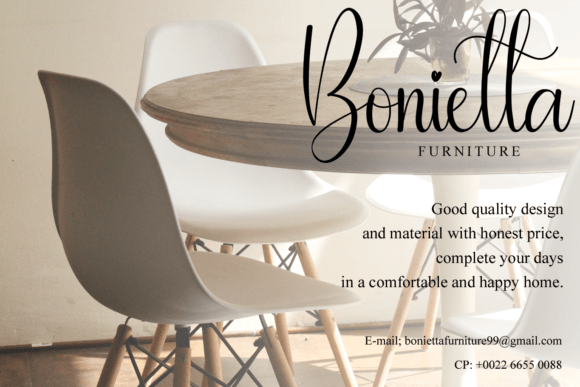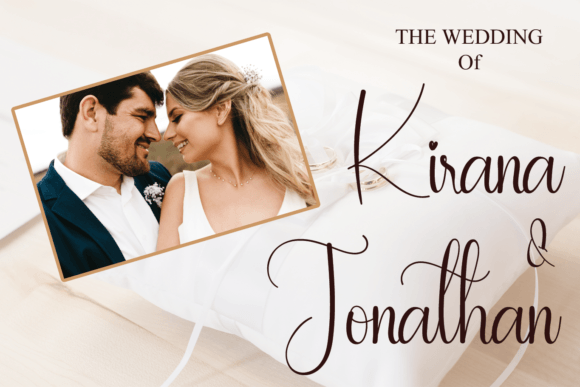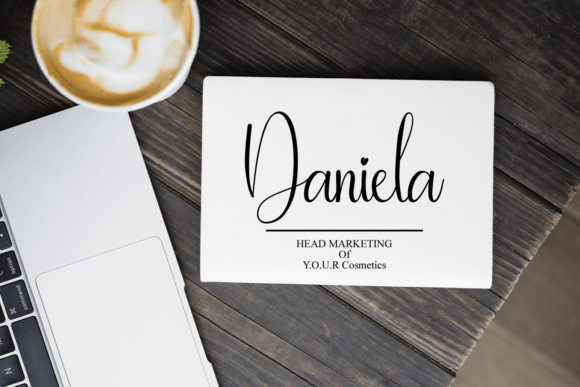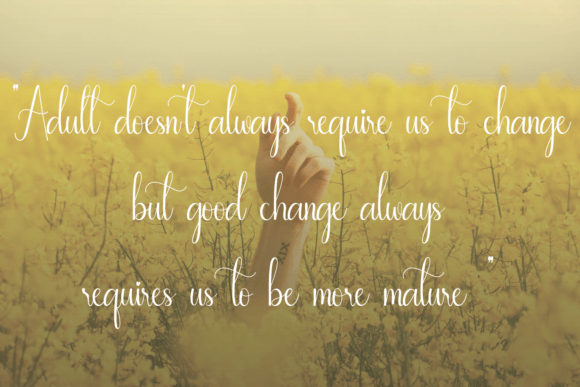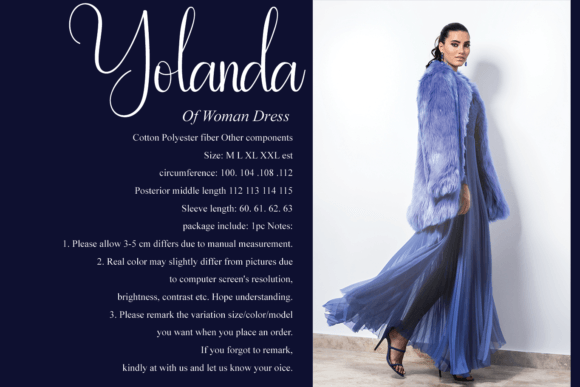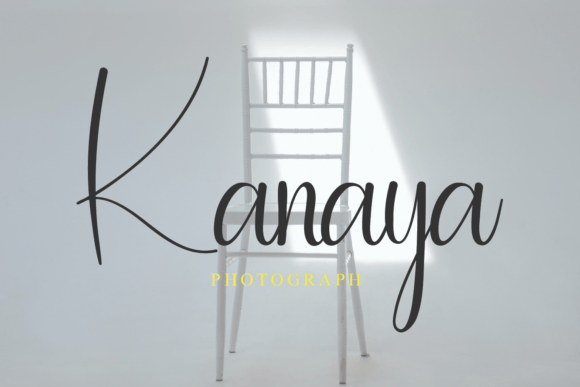
The Magic of Curtain Font: Elevating Your Designs with Elegance
I’ll never forget the time I was working on a wedding invitation project, and my client asked for a font that exuded romance and sophistication. I scoured the internet, tried out countless fonts, but nothing seemed quite right. That was until I stumbled upon Curtain Font – a beautiful, calligraphy script font that seemed to dance along the baseline. It was love at first sight! 💕
A Personal Review of Curtain Font
- ✨ Elegant and flowing script that adds a touch of luxury to any design
- 💫 Features beautiful OpenType characters and stylistic alternates
- 🎨 Perfect for a variety of design projects, from wedding invitations to branding and packaging
While Curtain Font is an amazing addition to any design project, there are a few things to keep in mind: 🤔
- ⚠️ Some characters may not work well in all contexts, such as in combination with certain punctuation marks
- ⚠️ May require some manual kerning to achieve optimal results
The Story Behind Curtain Font
Curtain Font was designed by a talented type designer who wanted to create a font that captured the essence of romance and elegance. Inspired by traditional calligraphy, the designer carefully crafted each character to flow seamlessly into the next, creating a beautiful and harmonious script font. 💌
Q: What is Curtain Font?
A: Curtain Font is a romantic and sweet calligraphy script font featuring characters that seem to dance along the baseline.
Q: What can I use Curtain Font for?
A: Curtain Font is perfect for a variety of design projects, including wedding invitations, branding and packaging, stationery, and more.
Q: Is Curtain Font easy to read?
A: Yes, Curtain Font is highly legible, even at smaller font sizes, making it perfect for body text and headings.